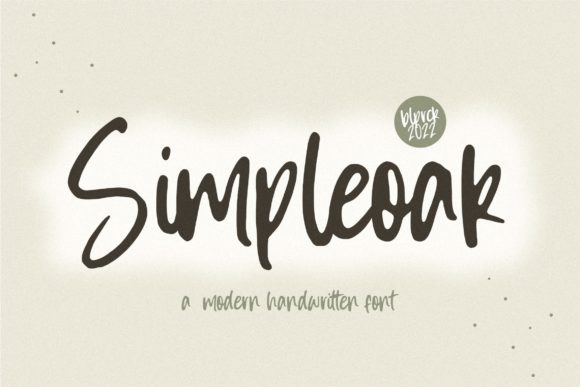
Dive into the world of Simpleoak Font, a captivating script font family that will transform your designs into timeless masterpieces. This font's graceful curves and vintage charm evoke a sense of nostalgia, making it the perfect choice for creating captivating logos, enchanting invitations, heartfelt greeting cards, and whimsical social media posts. Unleash your creativity and let Simpleoak's enchanting characters take your designs to new heights.
With Simpleoak, every project becomes a work of art. Its elegant and expressive letters add a touch of sophistication to any design, while its playful personality brings a smile to the faces of your audience. Whether you're a seasoned designer or just starting out, Simpleoak's user-friendly nature makes it easy to create stunning visuals that leave a lasting impression.
Imagine your designs adorned with Simpleoak's enchanting characters. Your logos will radiate a timeless charm, your invitations will captivate hearts, and your greetings cards will be cherished as keepsakes. Simpleoak elevates your designs, transforming them into captivating expressions of your creativity.
Join the growing community of designers who have embraced Simpleoak's magic. With its versatility and endless creative possibilities, Simpleoak is the perfect addition to any font collection. Experience the beauty of typography art with Simpleoak and let your designs speak volumes.